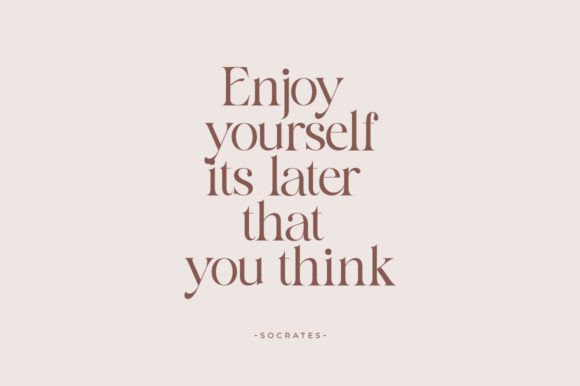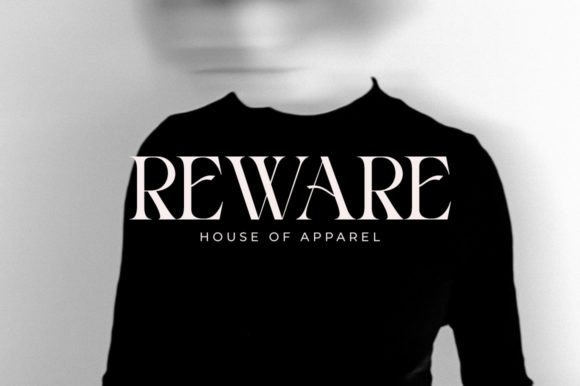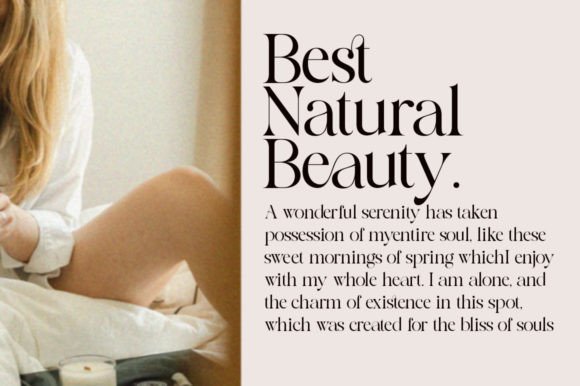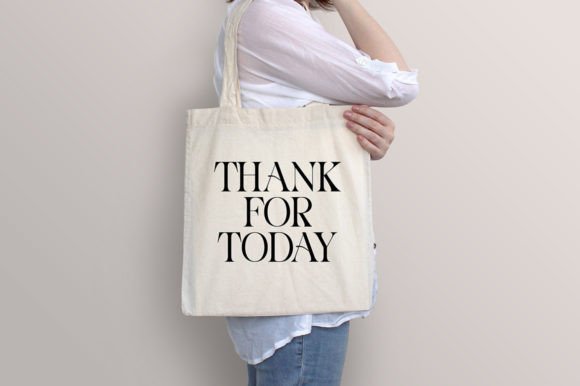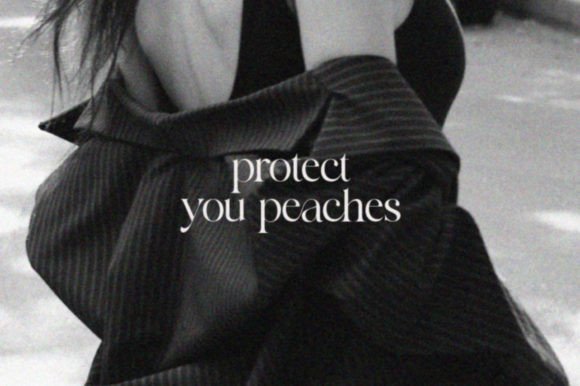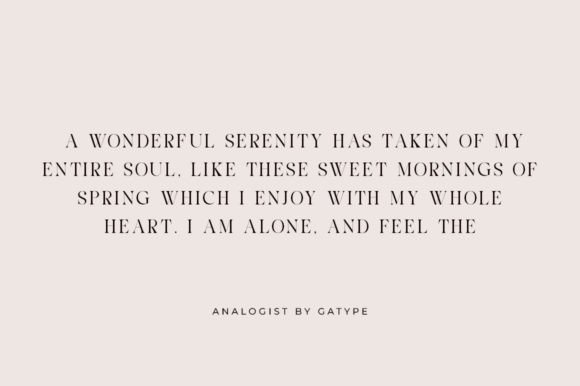
Discover the Perfect Blend of Modern and Vintage Charm
Have you ever stared at a blank canvas, trying to find the perfect font to bring your design idea to life? The moment of truth arrives when you finally find the one that makes everything click – and that’s exactly what we’re about to talk about. Introducing the Analogist Font, a modern serif font that’s here to revolutionize your design game.
This customizable font is a game-changer for designers, offering a unique look that’s perfect for a wide range of projects, from logos and fashion designs to magazine titles and advertisements. Whether you’re working on a branding project or creating social media posts, the Analogist Font adds a fun and friendly touch that sets your work apart. With its versatility and modern-vintage charm, this font is a valuable addition to any designer’s toolkit.
- Font Family: Analogist, Analogist Regular, Analogist Italic, Analogist Bold, Analogist Bold Italic
- Unique Characteristic: Analogist features a unique blend of modern and vintage elements, with a focus on geometric shapes and subtle texture
Analogist Font Review
As a designer, I was excited to dive into the Analogist Font. Overall, I was impressed with its unique features and versatility. Here’s a breakdown of what works well and some limitations I encountered:
- Unique blend of modern and vintage flair: The Analogist Font has a distinctive look that sets it apart from other fonts. Its mix of modern and vintage elements makes it perfect for projects that require a touch of sophistication.
- Highly legible: The font is incredibly easy to read, making it a great choice for body text and headings.
- Excellent for digital and print use: I was pleased to see that the Analogist Font performed well in both digital and print applications.
- Not ideal for small text sizes: While the font is highly legible, it can become pixelated when used at very small text sizes.
Overall, the Analogist Font is a solid choice for designers looking for a unique and versatile font. While it has some limitations, its strengths make it a great addition to any design project.
Analogist Font is a versatile font suitable for various design projects, including:
For optimal results, pair Analogist Font with a clean and minimalist design aesthetic.